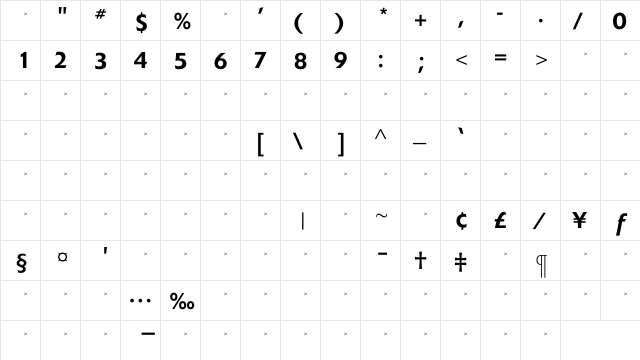
ExtensionMediumTab Regular
Design Context for ExtensionMediumTab Typeface
ExtensionMediumTab is a composed and adaptable typeface that performs quietly and consistently across a wide range of design contexts.
Dating back to 1993, this typeface is available in OpenType (OTF) format.